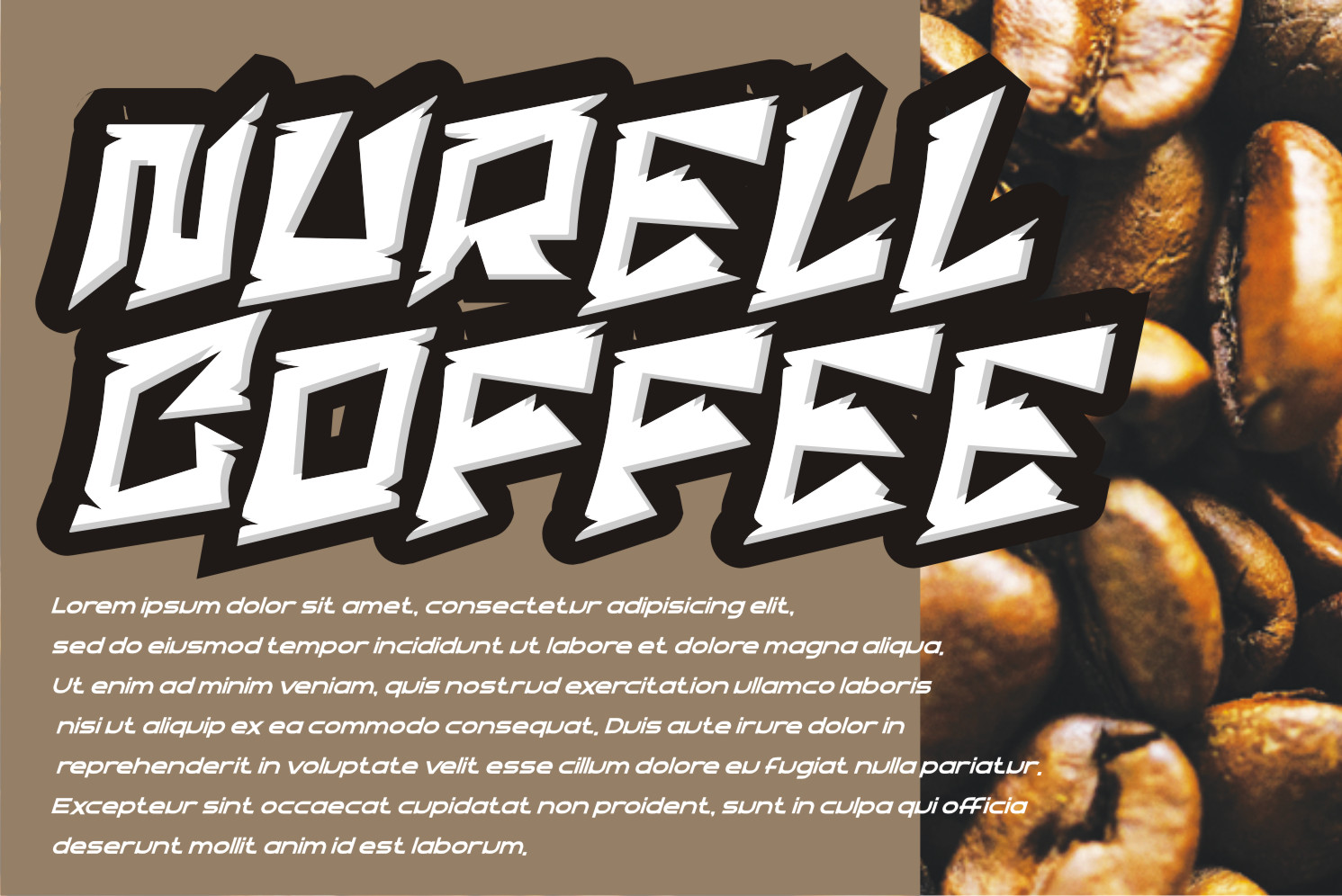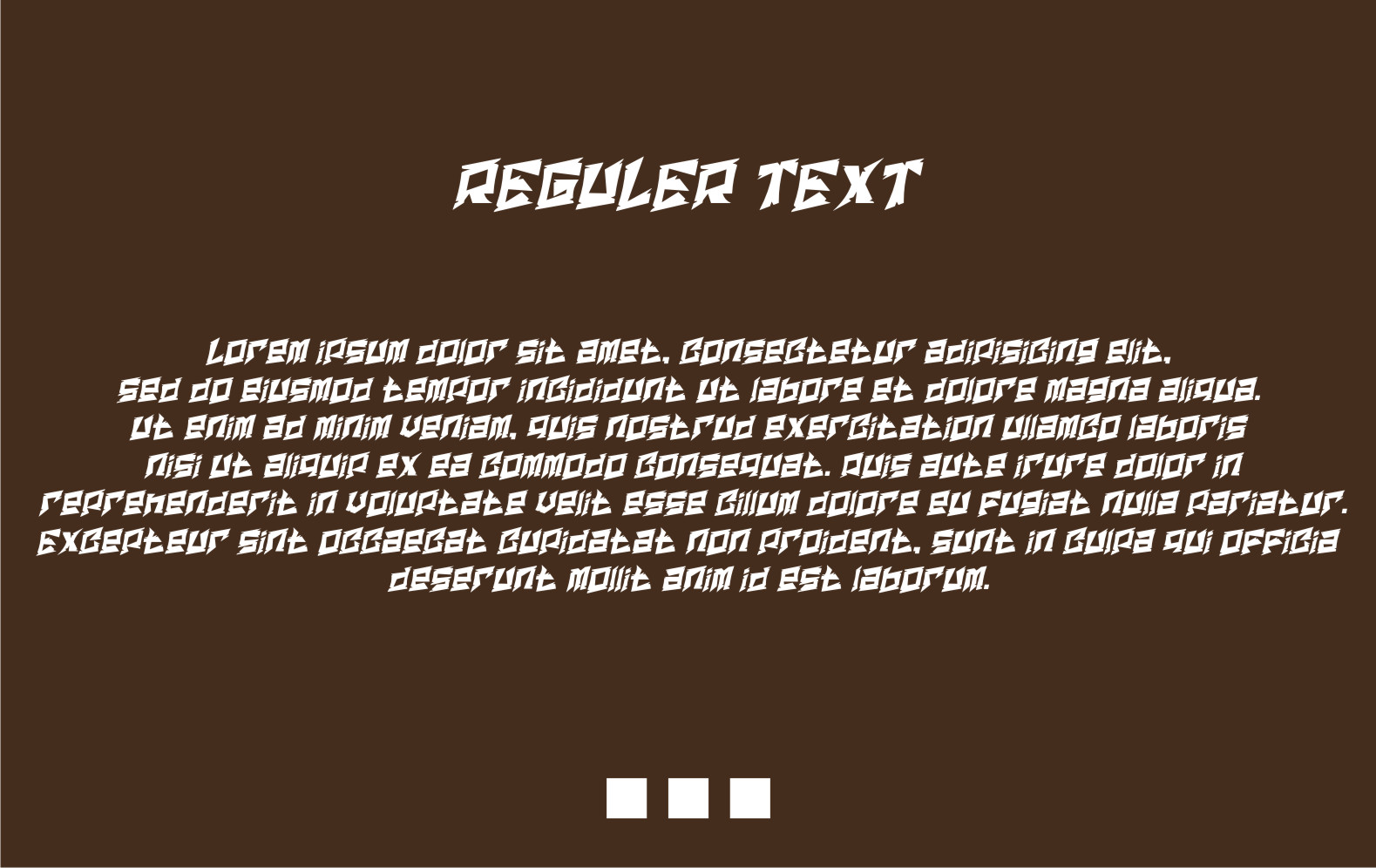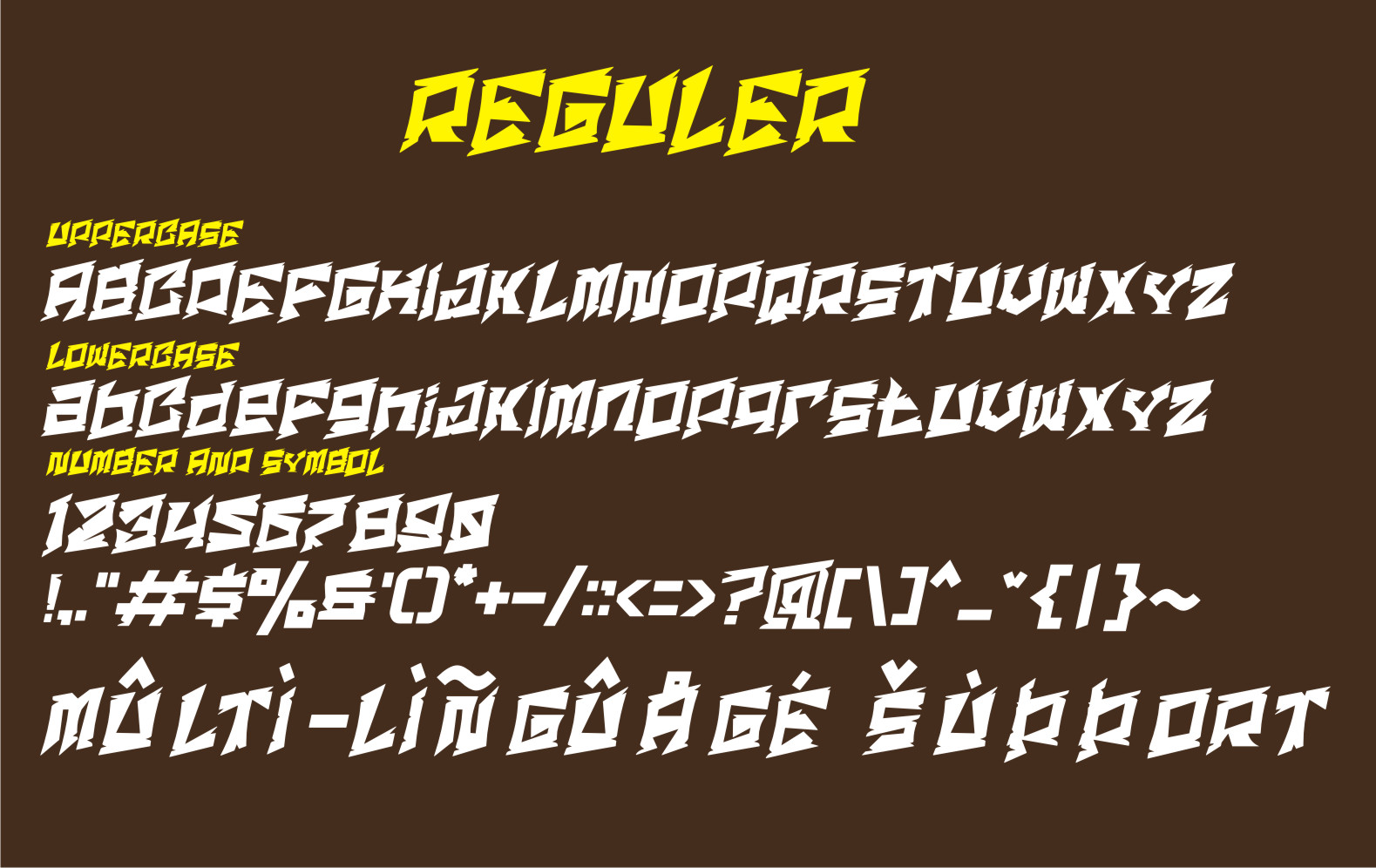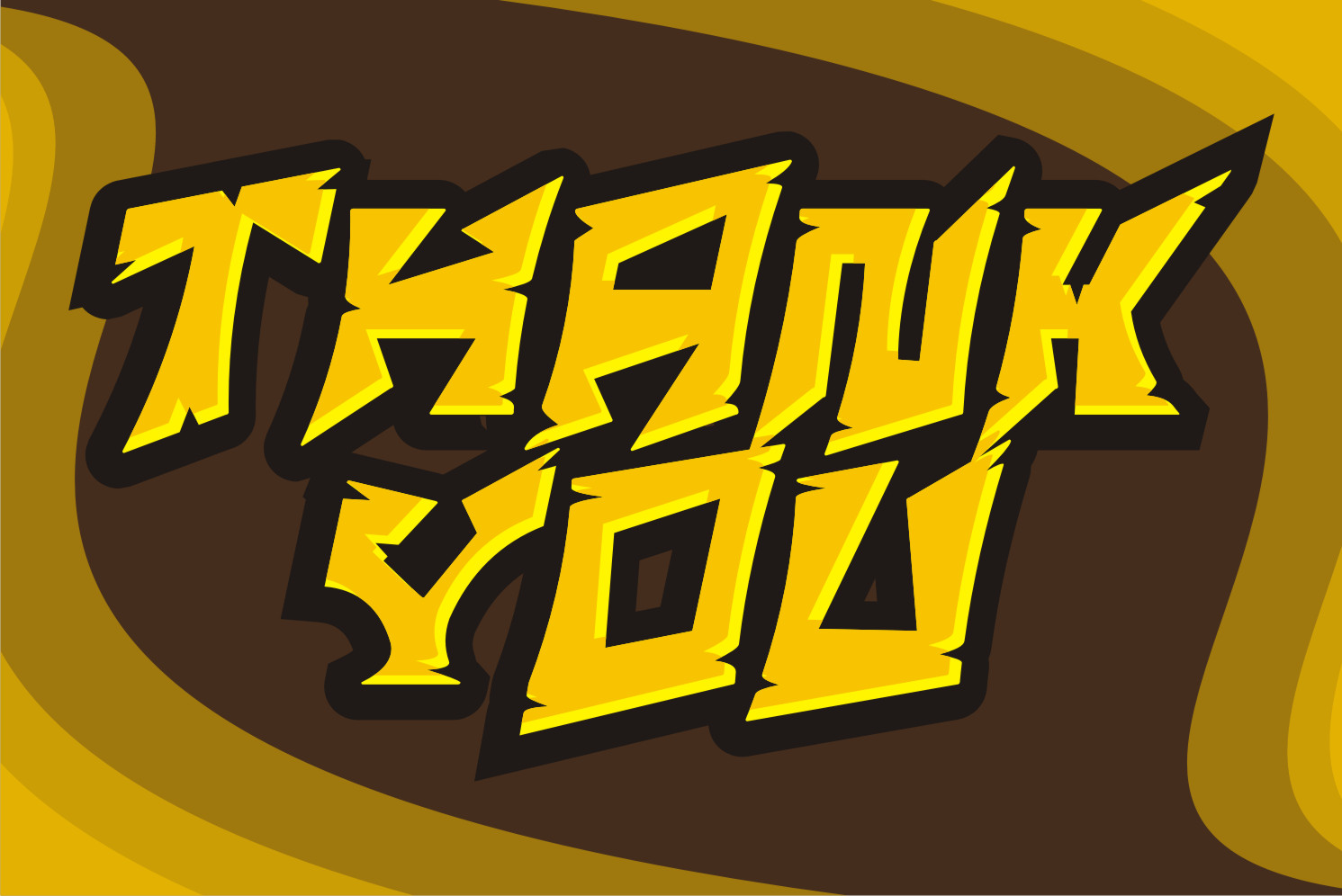
Tamus Font
Tamus Display Font
This is a cool, bold and thick lettered display font. This font is suitable for designs such as t-shirts, sportswear, logos, advertisements, clothing, and more.